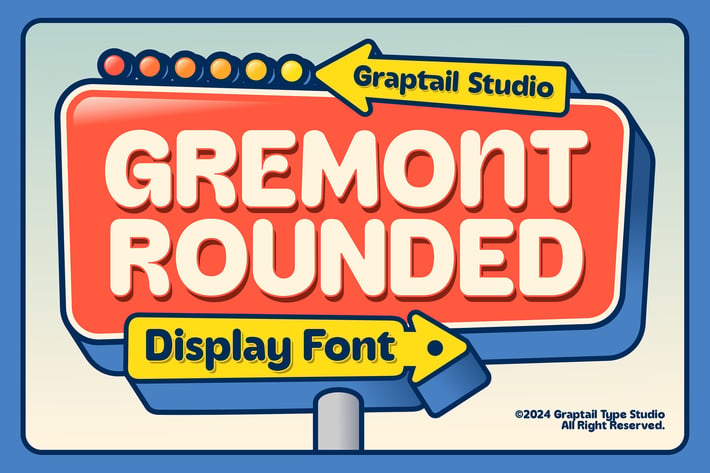
Gremont - Rounded Font
Gremont Rounded is a sans-serif typeface that exudes retro charm with a modern twist. Combining smooth, rounded lines with a distinct vintage vibe, Gremont Rounded is the perfect choice for designs seeking a balance between nostalgic warmth and contemporary freshness.
The retro essence of Gremont Rounded is evident in its letterforms, inspired by typography from the 1980s yet updated to remain relevant in the digital age. It's the perfect choice to add a touch of nostalgia to your designs while maintaining a fresh and modern look.